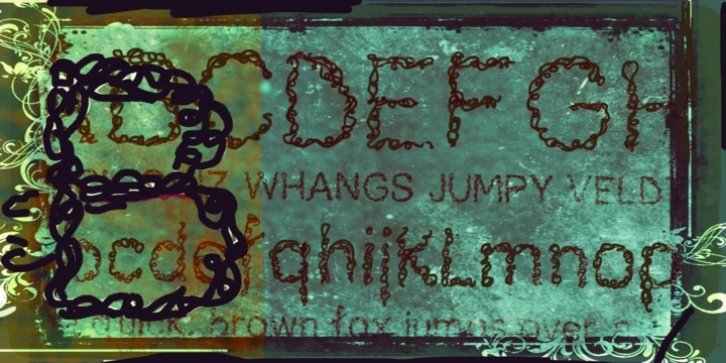
Scribble Knot was designed by Carmen Garriga RÃos and published by giftype. Scribble Knot contains 1 style.
Scribble Knot is made of simple scribbles with loose knots that make circumferences to the right and left each glyph. It is made so that the stroke is not repeated, leaving a special and original text. Scribble Knot is a font that includes Russian and Greek characters.